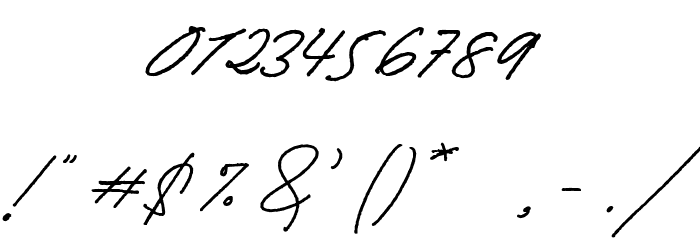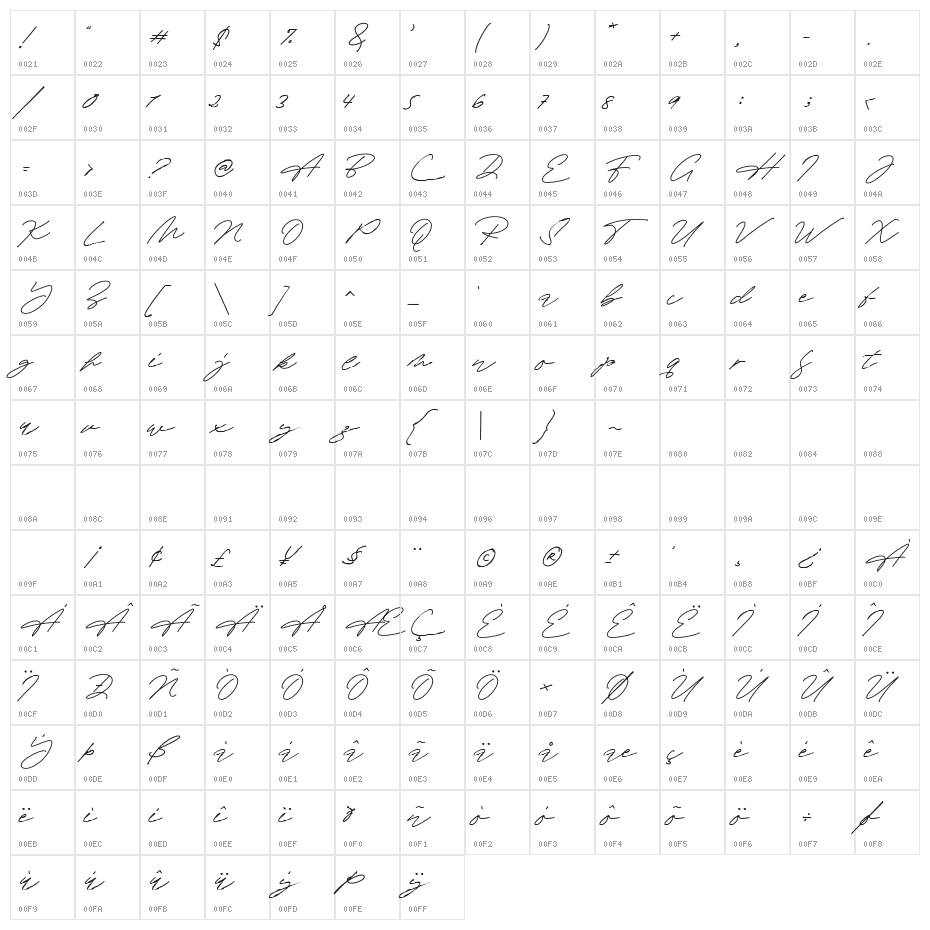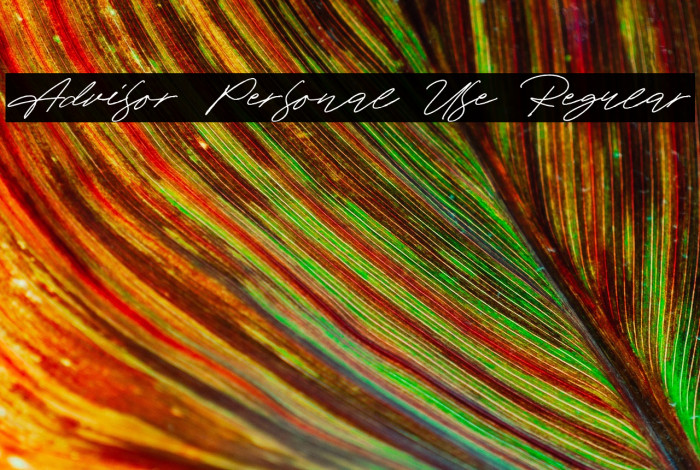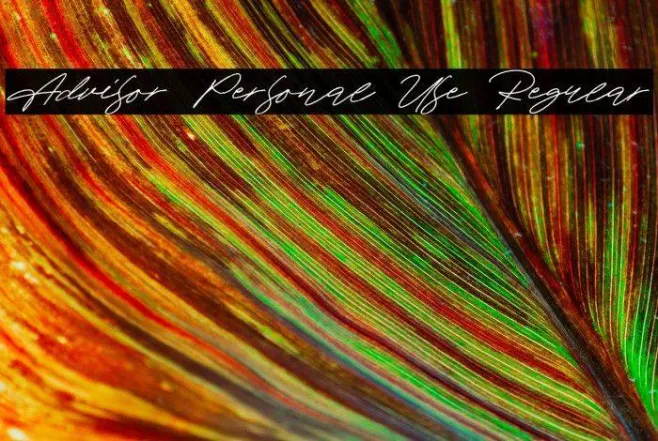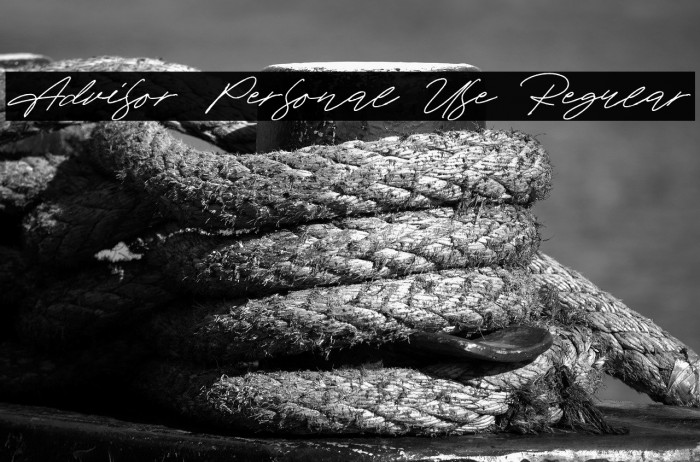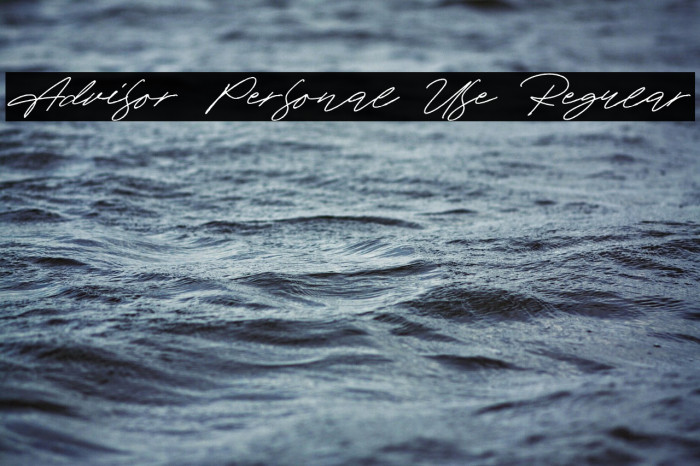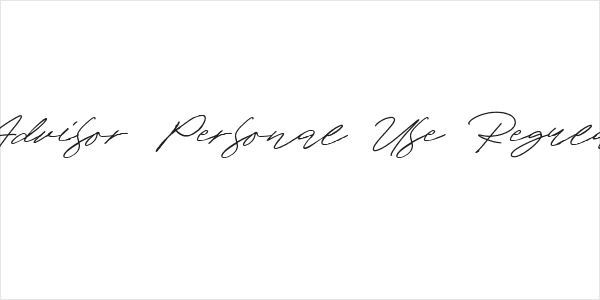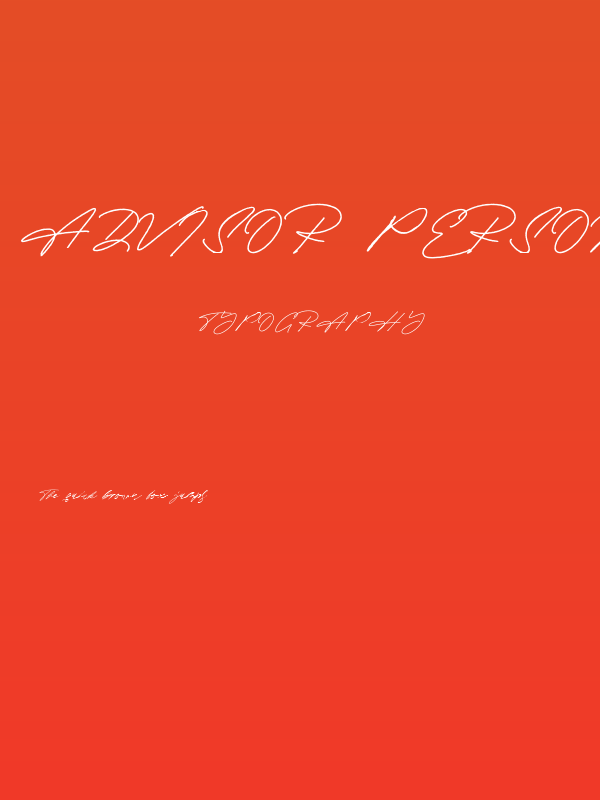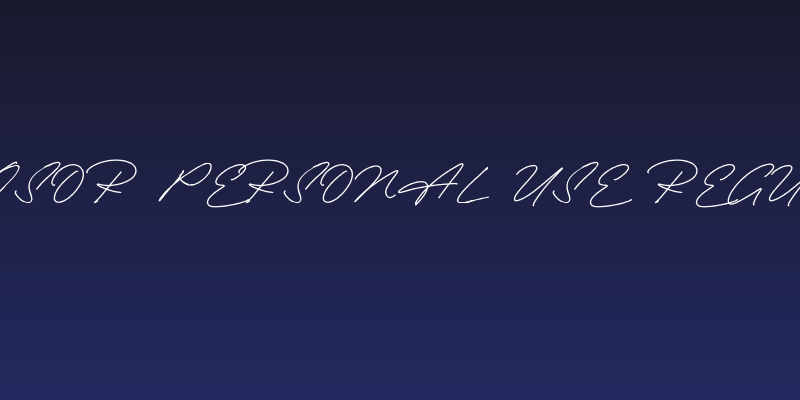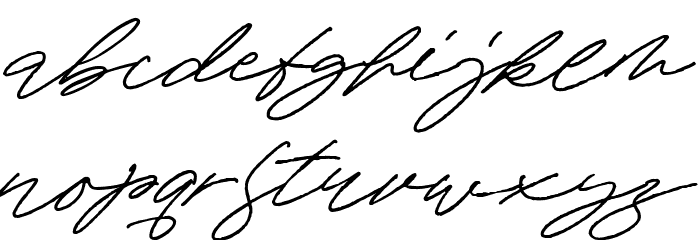
Advisor Personal Use Regular Font
Advisor Personal Use Regular Description
This font exudes a sophisticated and elegant handwritten style, characterized by its fluid and continuous strokes. The letters are connected seamlessly, creating a natural flow that mimics cursive handwriting. The uppercase letters are slightly larger and more pronounced, while the lowercase letters maintain a consistent size and style. The numerals and special characters are crafted with the same attention to detail, ensuring uniformity across the entire character set. This font is ideal for projects that require a personal touch, such as invitations, greeting cards, or branding materials. Its graceful appearance makes it suitable for conveying elegance and refinement.
| Overall Style | Elegant, Sophisticated |
| Proposed Projects | Ideal for invitations, greeting cards, branding materials, and any project requiring a personal touch. |